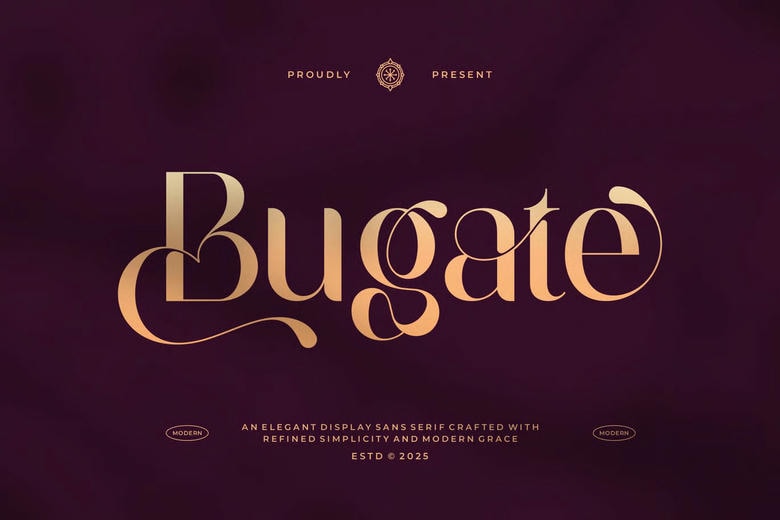
Bugate Font
Bugate is a luxurious and stylish type of font to be used in every branding design and logo. It is a beautiful font with a classy and elegant character. The font can be used in the invitation card designs, cool logos, movie titles, movie names, business cards, book titles, brand names, and all other designs.
Bugate Sans serif is a smooth, non-serif font which is full of elegance and the instant. This font is an ideal companion to any project due to its fashionable ligatures.
Bugate Sans Serif Font